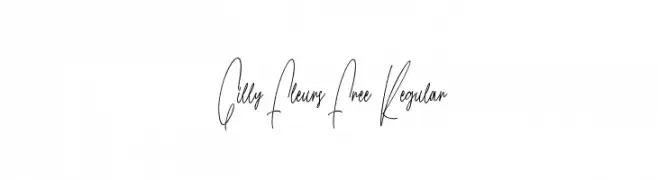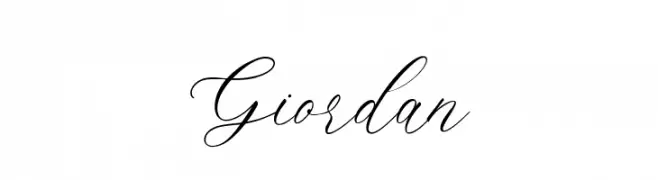
A playful, rounded font with a friendly and approachable style.
A classic serif font with modern elegance and refined letterforms.
A dynamic and flowing script font with elegant, elongated letterforms.
An elegant script font with flowing, interconnected letters and decorative flourishes.
Elegant cursive font with interconnected characters and stylish flourishes.
An elegant, flowing script font with thin, delicate lines and graceful curves.
A bold, modern font with geometric lines and strong visual impact.
A bold, flowing script font with a dynamic, handwritten style.
An elegant script font with fluid, cursive strokes and sophisticated design.
A refined and elegant script font with flowing cursive letterforms.